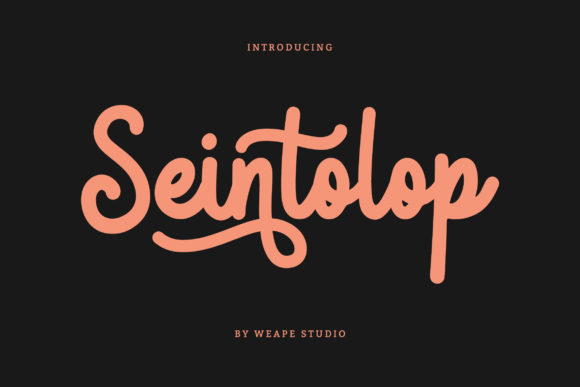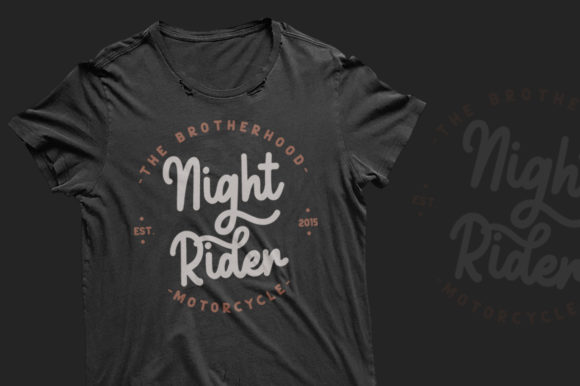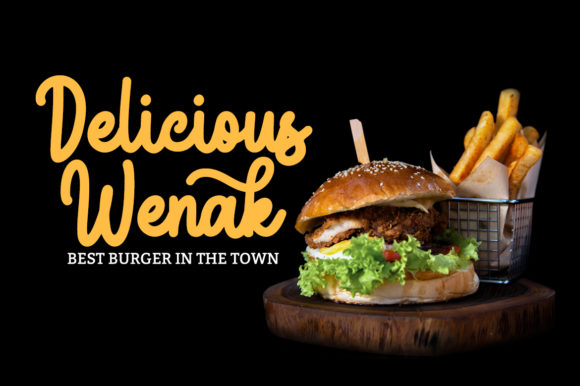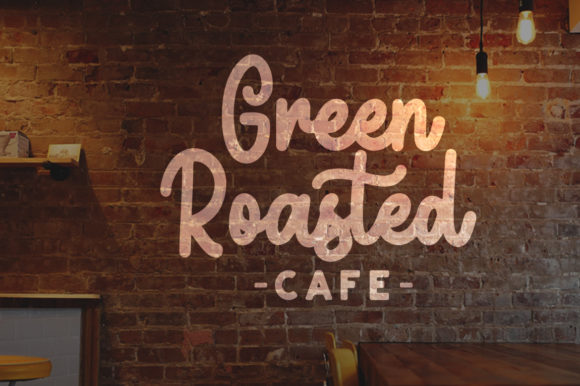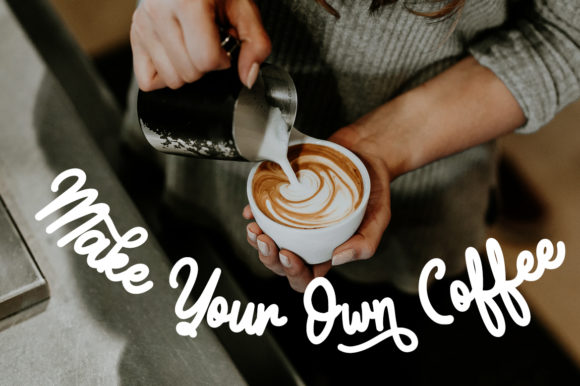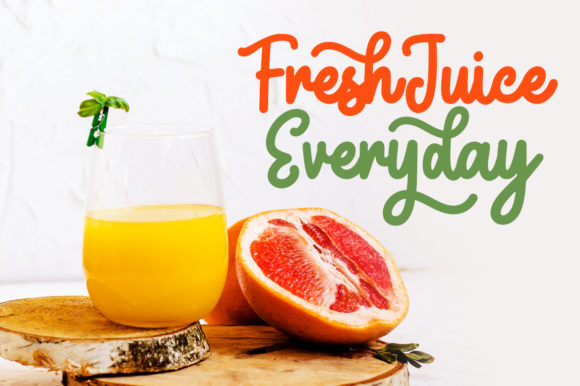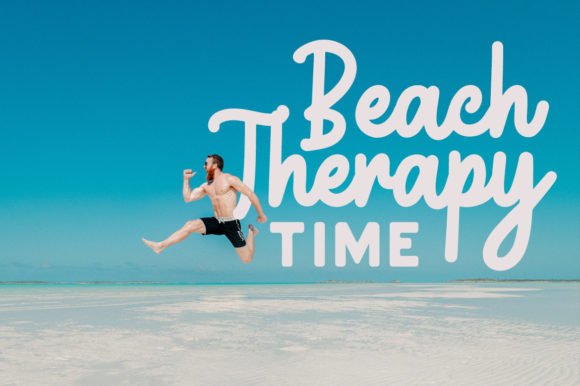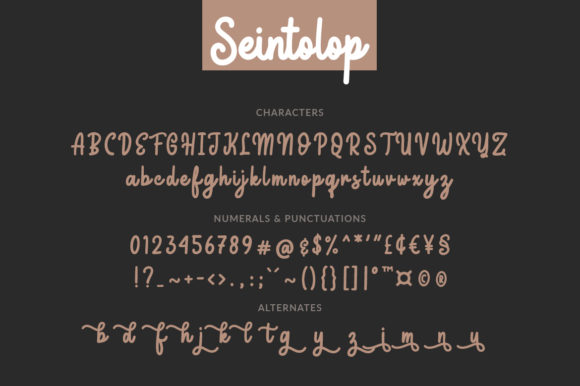
Seintolop Font
About Seintolop Font
Seintolop feels equally charming and elegant. It looks stunning on wedding invitations, thank you cards, quotes, greeting cards, logos, business cards and every other design which needs a handwritten touch.